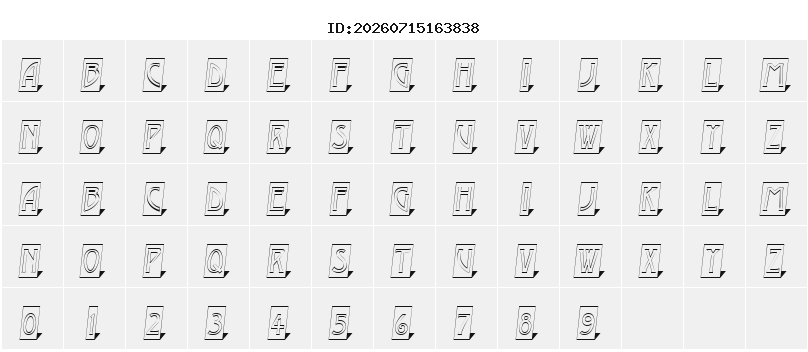
a_ModernoCmOtl3DSh Preview
• Font Name: a_ModernoCmOtl3DSh
• Font ID: a_ModernoCmOtl3DSh
• Full Font Name: a_ModernoCmOtl3DSh
• Version: 01.03
• PostScript Name: a_ModernoCmOtl3DSh
• Character Count: 267
About a_ModernoCmOtl3DSh.ttf
a_ModernoCmOtl3DSh.ttf is a modern, elegant sans-serif font designed for ultimate readability and visual harmony. Perfect for branding, headlines, web design, and print materials.